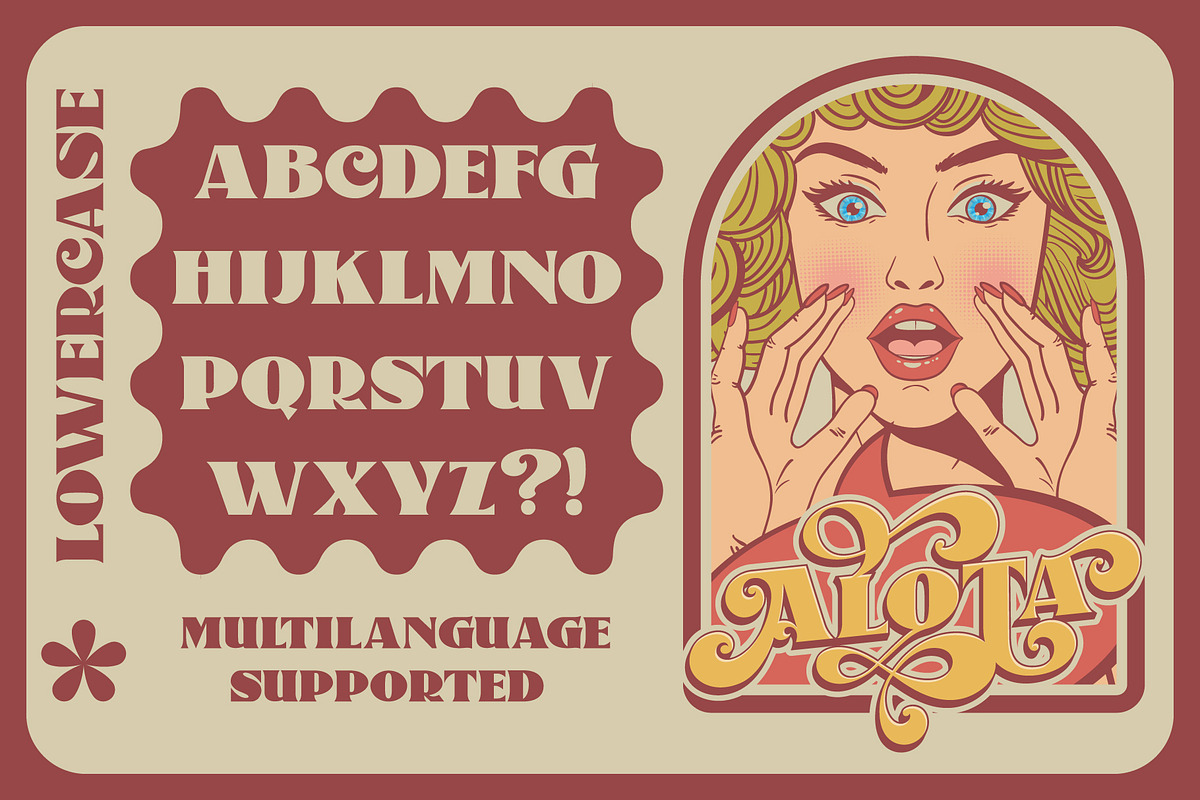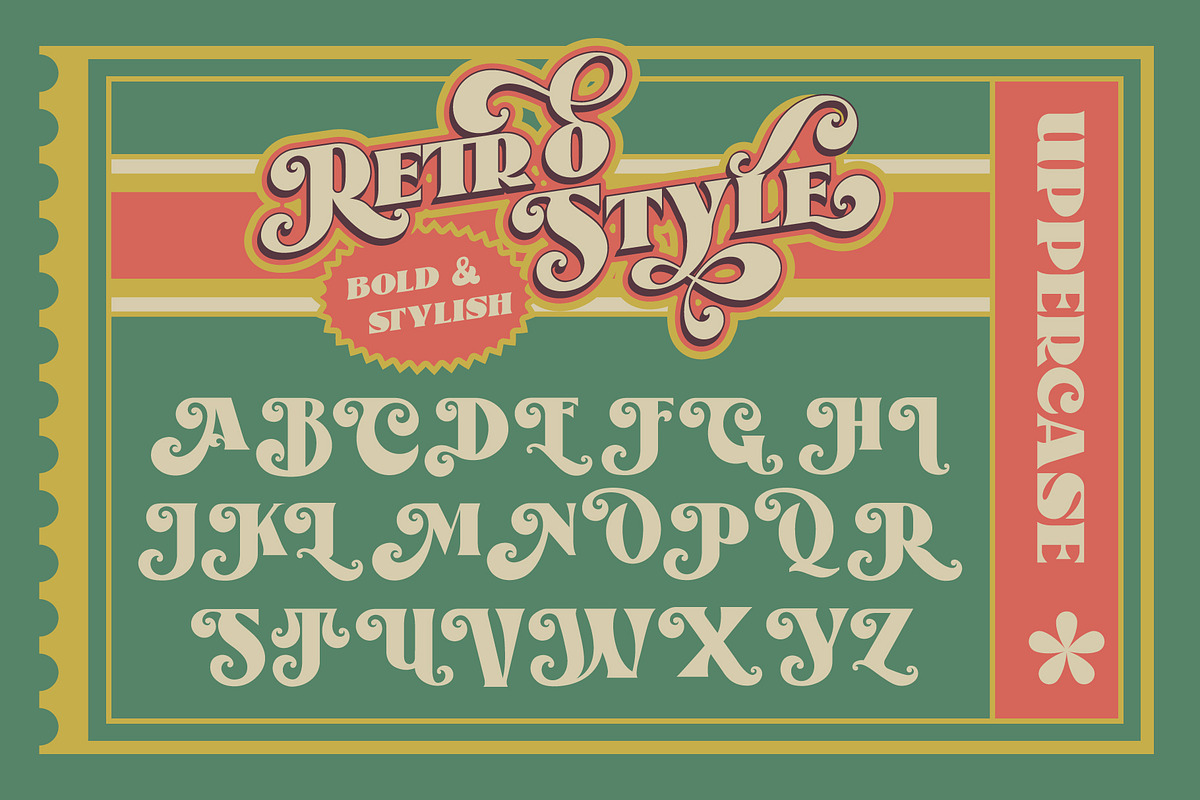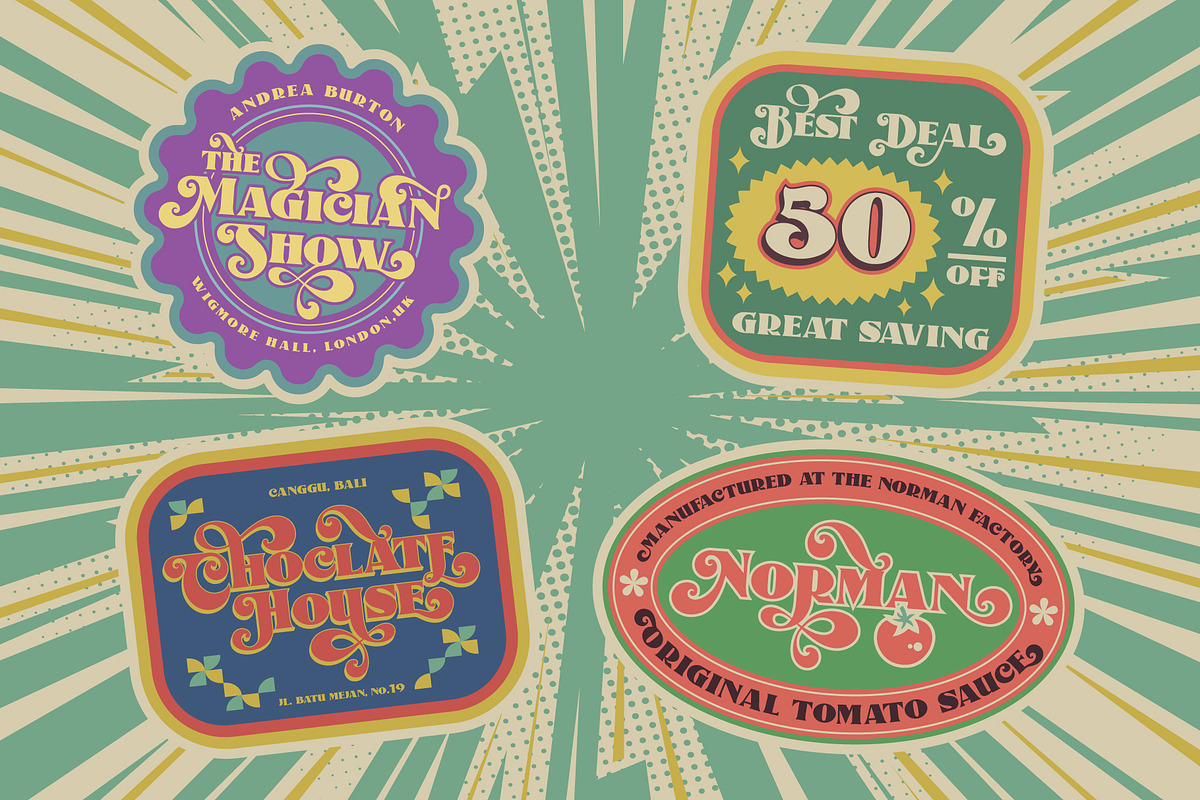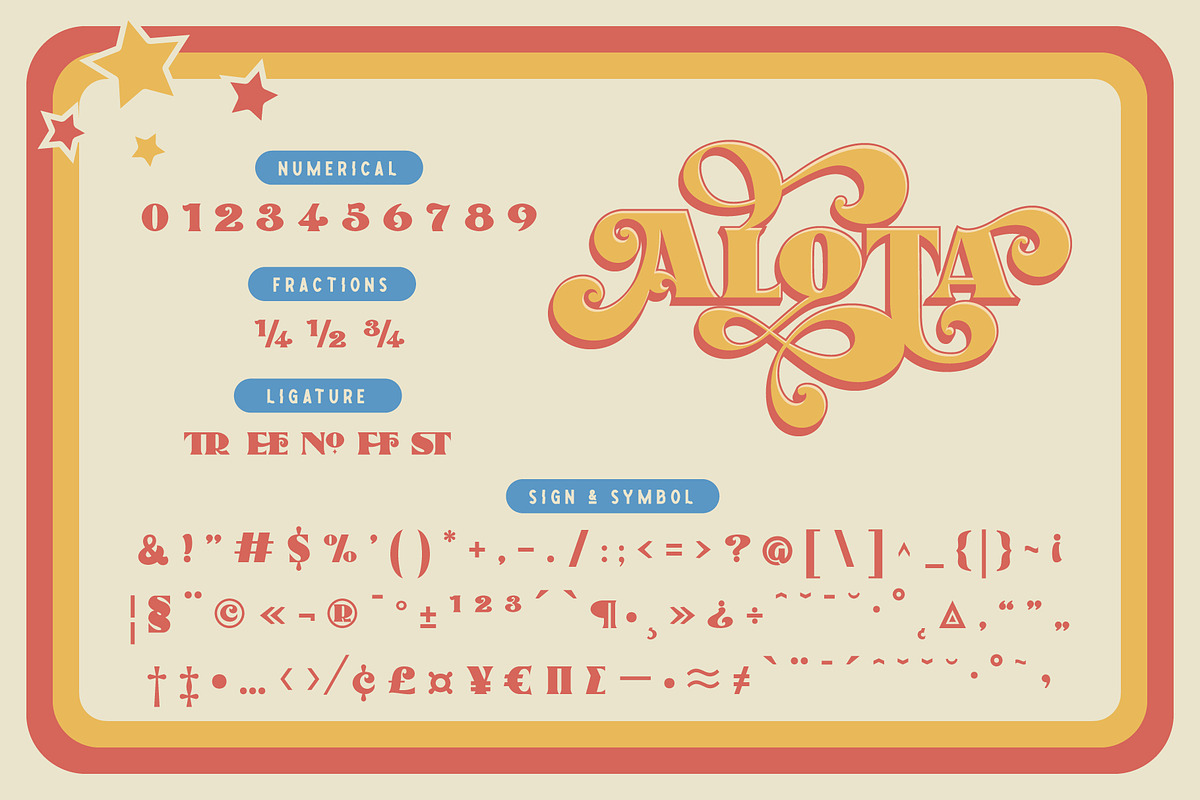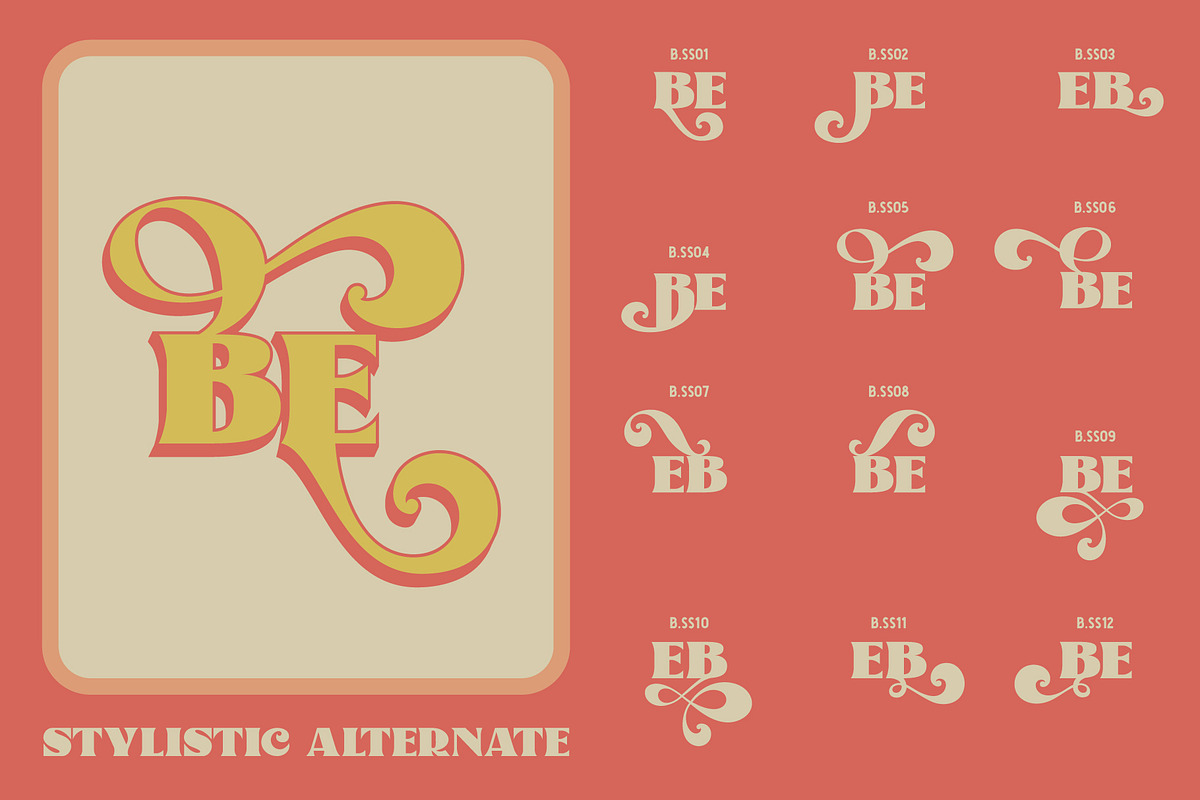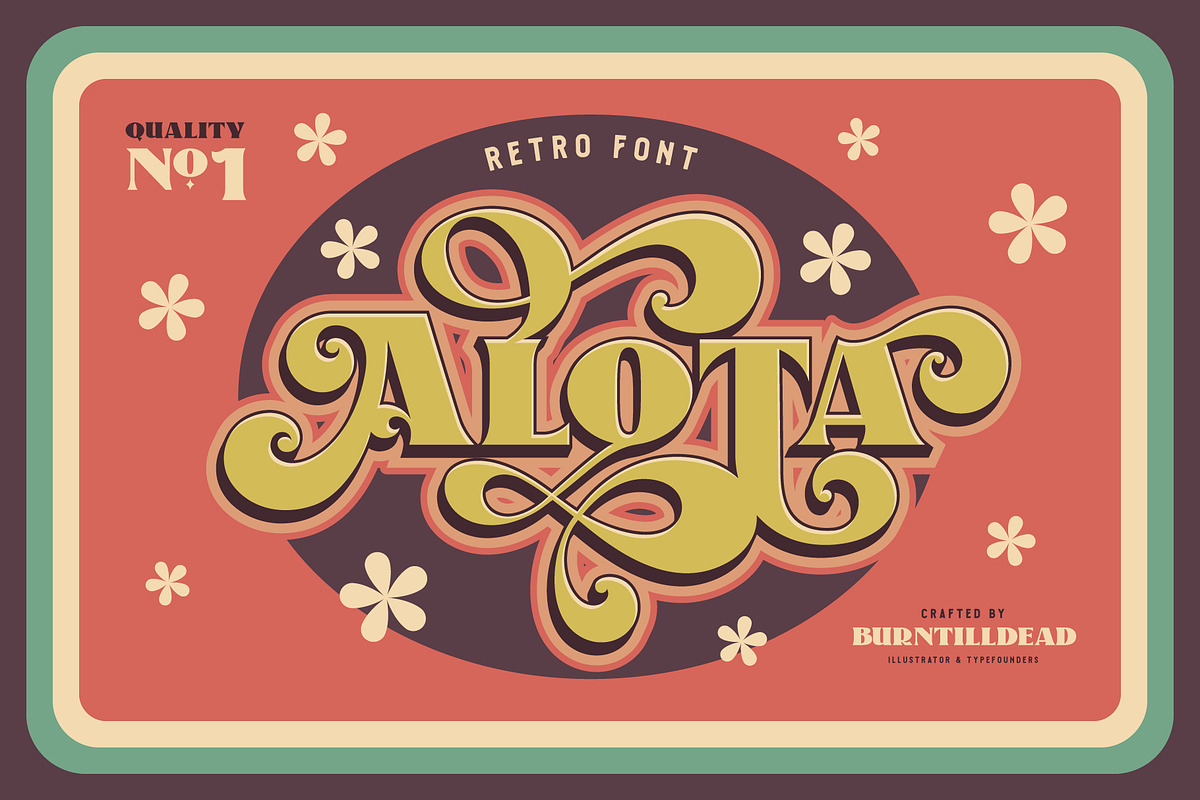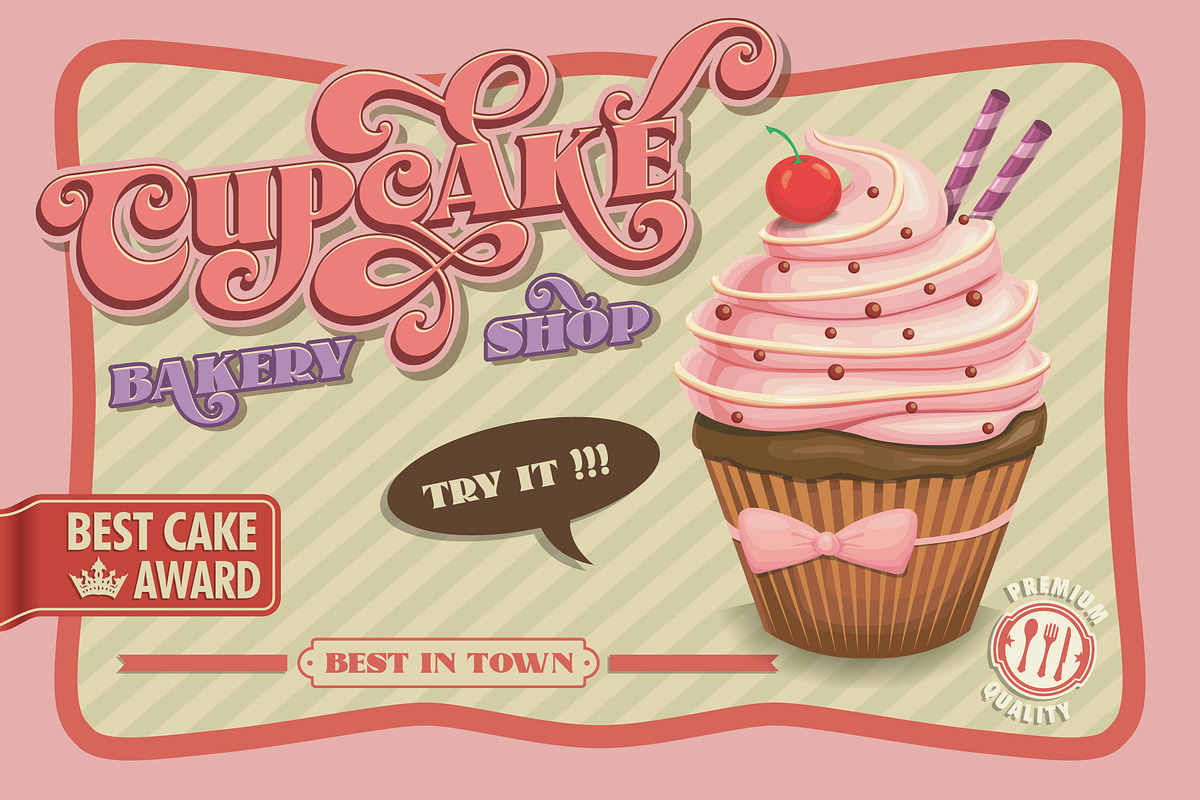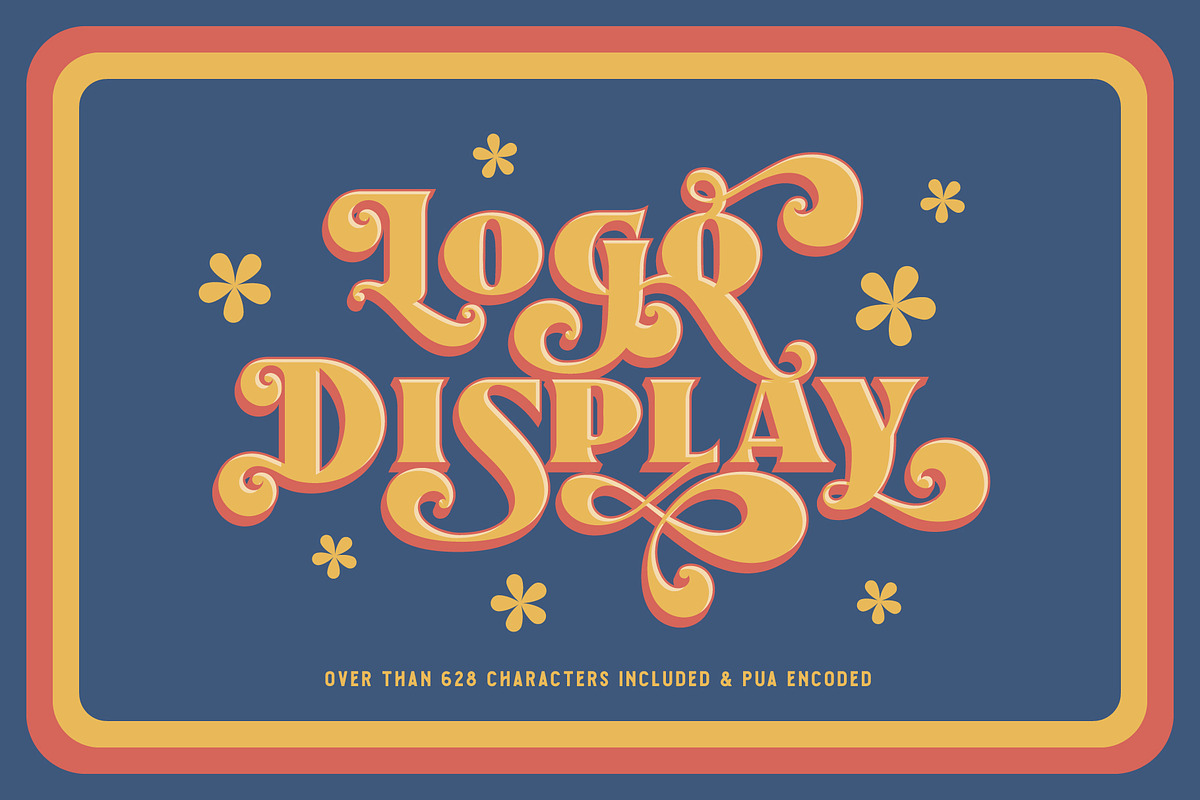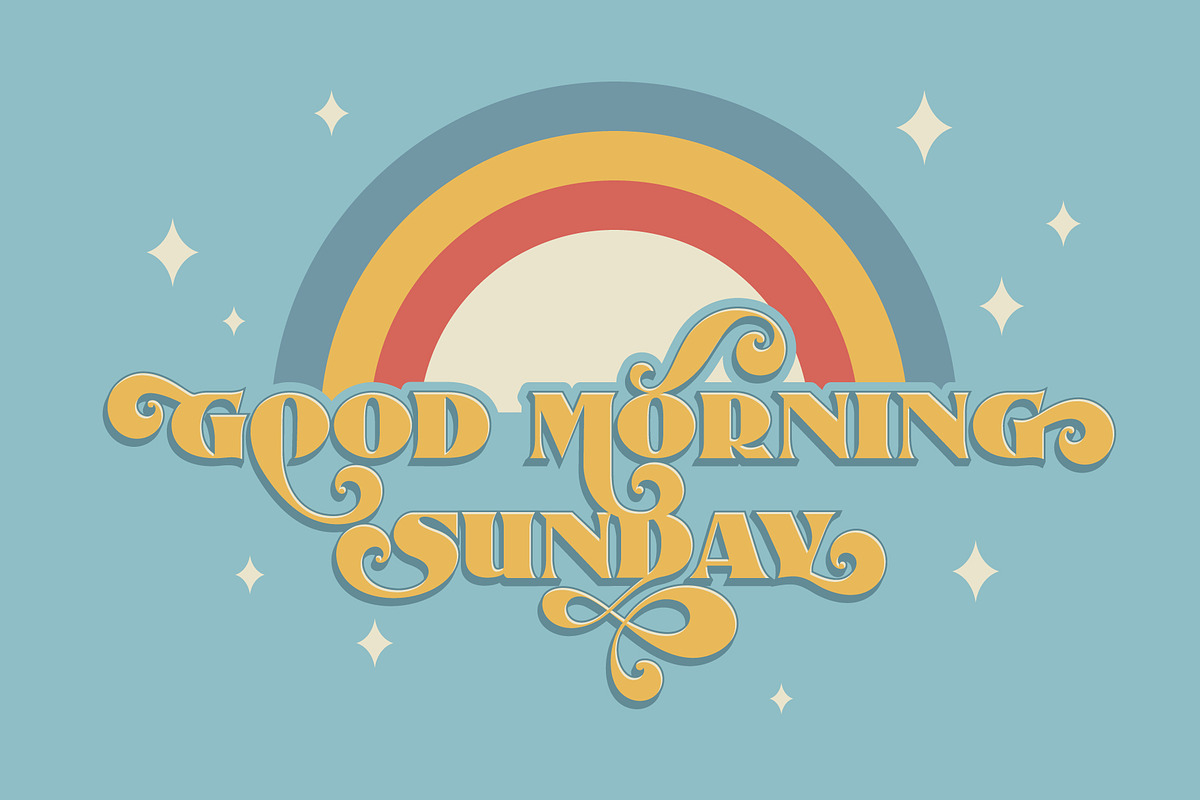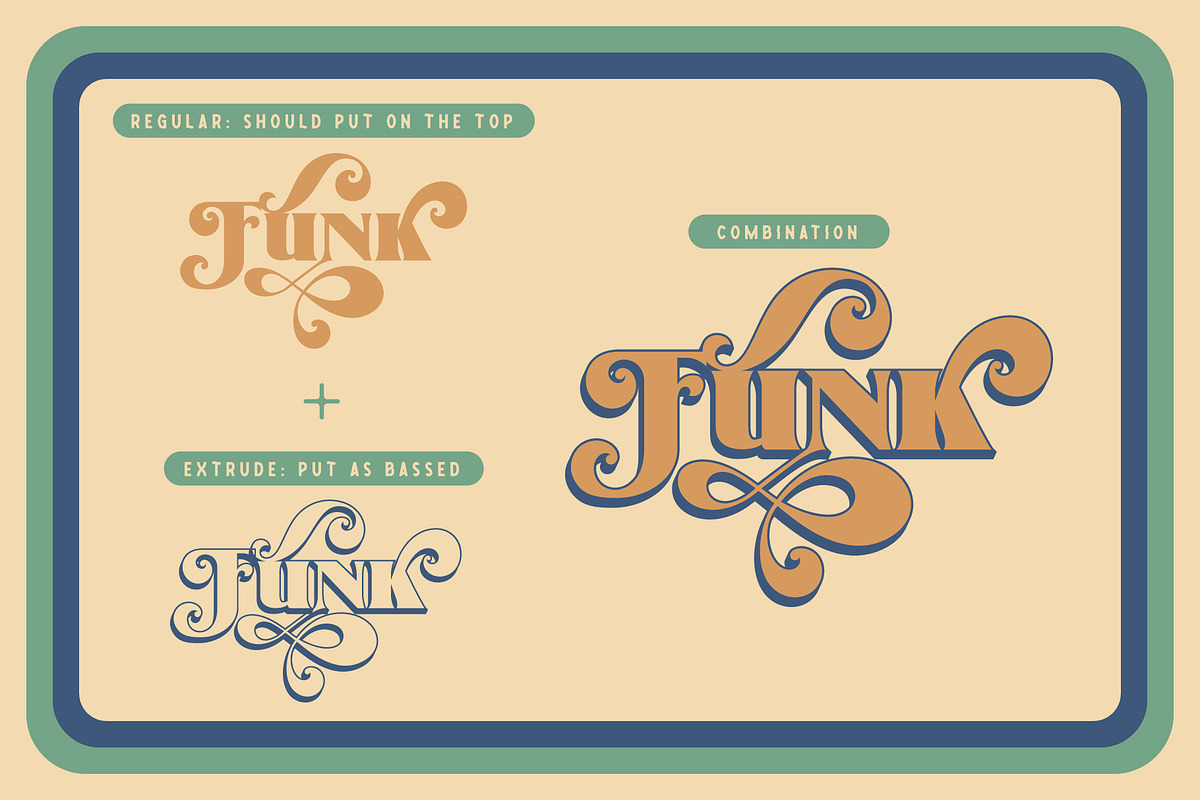
Alota
Say hi to “Alota” retro typeface. Inspired by 70’s design styles, a good decade where we saw many calm colors with groovy, bold, 3D and round shape.
This font is very easy to use with hundreds of stylistic alternate (ss01-ss12) & powered with opentype feature.
The font really bring a good statement for your logo design and can be the image of a design.
Alota is very unique and easy to apply to any media; t-shirts, posters, sign boards, and social media needs.
ligature
fraction
Stylistic Alternates (01-12)